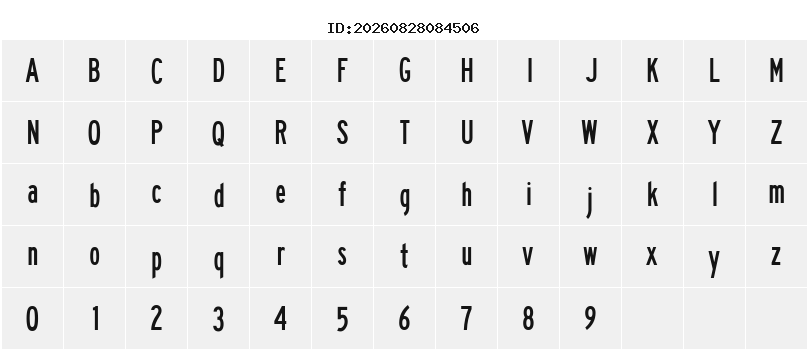
Traffic 01.ttf is a modern, elegant sans-serif font designed for ultimate readability and visual harmony. Perfect for branding, headlines, web design, and print materials.